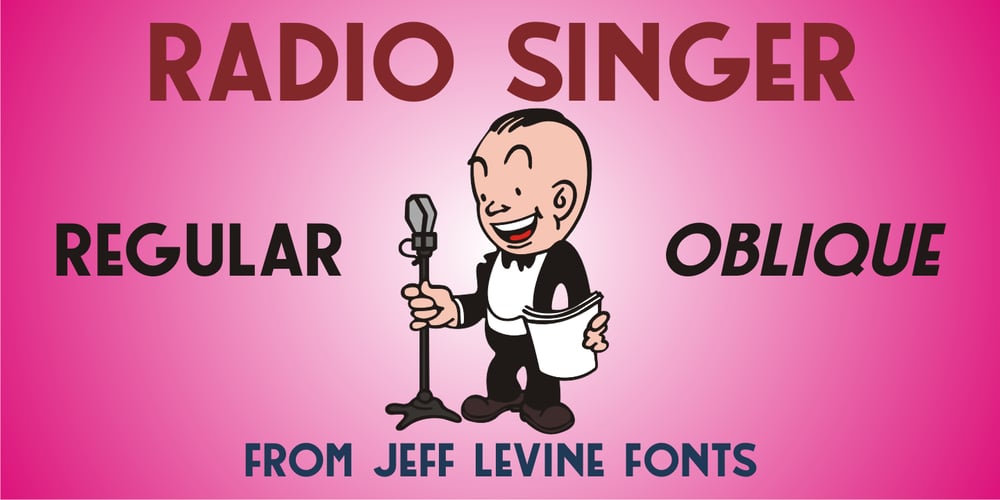
Radio Singer JNL Font Family was designed by Jeff Levine and published by Jeff Levine. Radio Singer JNL contains 2 styles and family package options. The hand lettered sans serif title on the sheet music for the 1930s song “I’m Alone Because I Love You” was the inspiration for Radio Singer JNL, which is available in both regular and oblique versions.